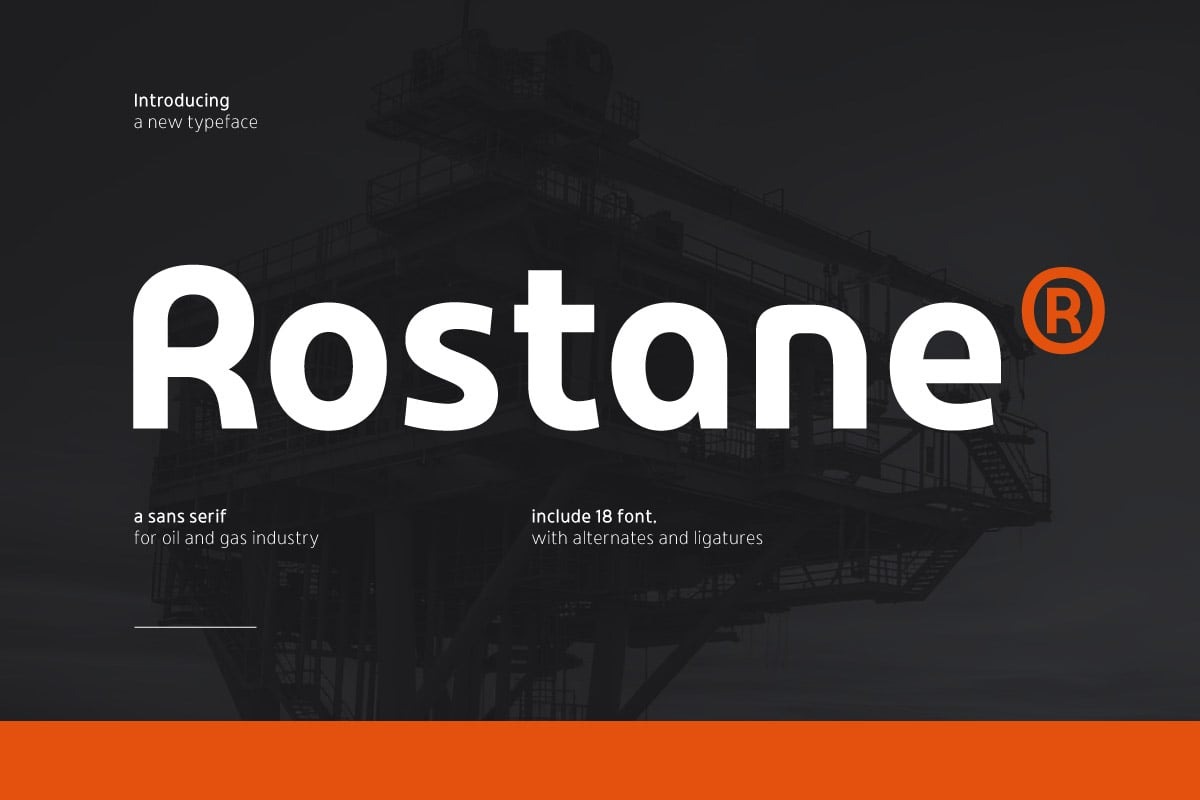
Rostane Sans Serif Font Family
Rostane Sans Serif Font Family is a clean and thoughtfully built typeface that works seamlessly for both professional branding and everyday creative uses. is a modern sans serif typeface crafted to deliver a strong, professional, and industrial-driven visual identity. Featuring bold letterforms, stable proportions, and clean construction, it is perfectly suited for energy companies, oil and gas corporations, engineering firms, manufacturing businesses, logistics providers, and industrial technology brands.
Inspired by the world of engineering and heavy industry, Rostane communicates reliability, strength, and operational excellence. It performs exceptionally well in headlines, corporate branding, company websites, annual reports, presentations, industrial packaging, and marketing materials that require a confident and authoritative appearance.
Whether you’re building a global energy brand or creating a modern industrial identity, Rostane provides the professional typography needed to establish trust, credibility, and long-term brand recognition.